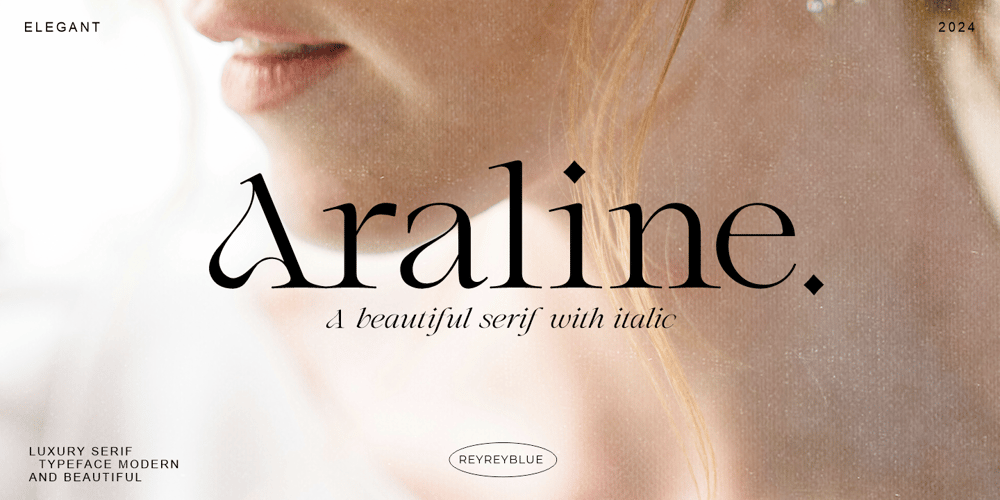
Araline Font Family was designed by Risca Anitawati and published by Reyrey Blue Std. Araline contains 2 styles and family package options. Introducing Araline. It is a modern serif typeface that blends classic charm with contemporary style. Araline is also equipped with an italic version, making the elegant impression appear more real.This type of font is perfect for logos, headlines, signage, and other various formal forms such as invitations, labels, logos, magazines, books, greeting/wedding cards, packaging, fashion, makeup, stationery, novels, labels, or any advertising purpose. This product was created to help you make your digital images even more beautiful and unique.Features : Uppercase & lowercaseNumbers and punctuationMultilingual SupportPUA encoded